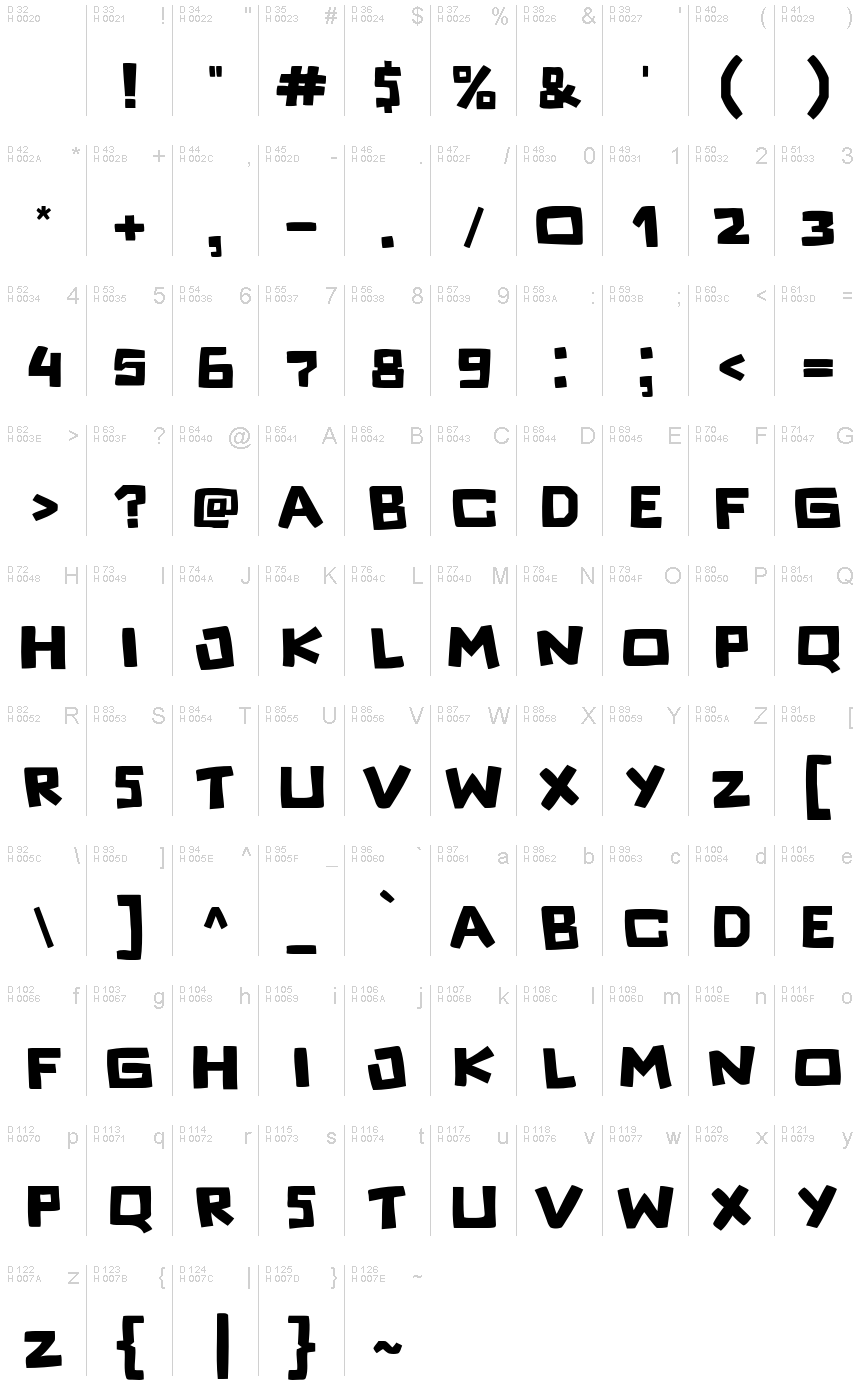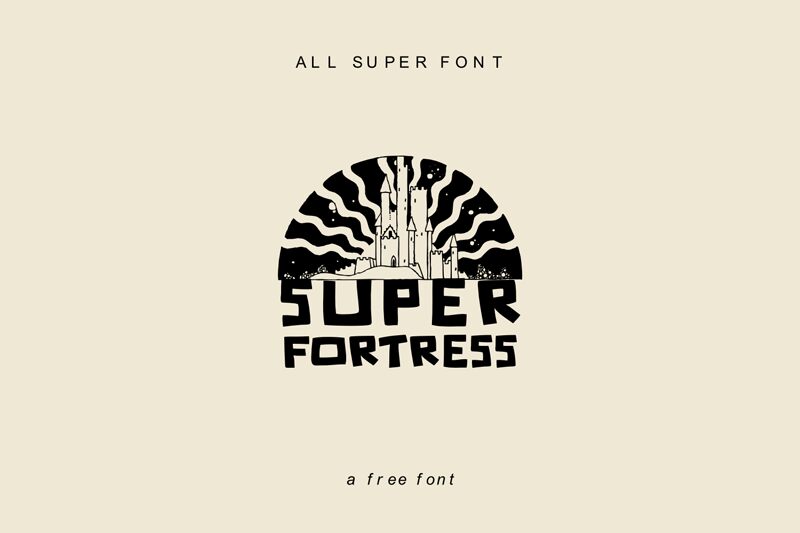
Super Fortrees
Super Fortrees font, crafted by fsuarez913, stands out with its bold, playful design. This cartoon-style typeface features a strikingly expanded form that draws attention effortlessly, making it perfect for vibrant displays and creative projects. The exaggerated shapes lend a sense of fun and whimsy, ideal for elements intended to evoke joy or creativity.
Visually captivating, Super Fortrees is an excellent choice for branding, children’s media, or any initiative where a sense of personality reigns supreme. Its strong presence ensures messages resonate clearly while maintaining an inviting aesthetic. Whether applied to posters, website headings, or product packaging, this font infuses designs with an element of excitement and charm that is hard to overlook.